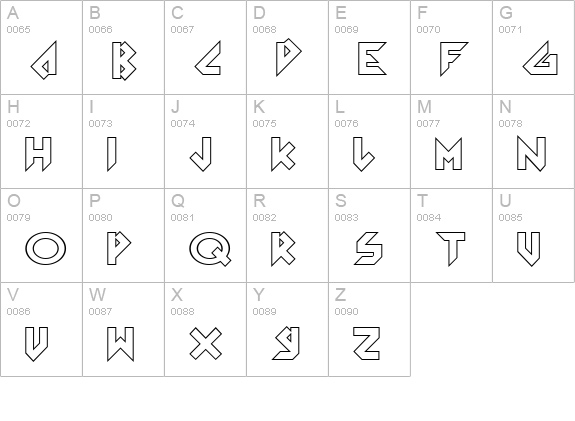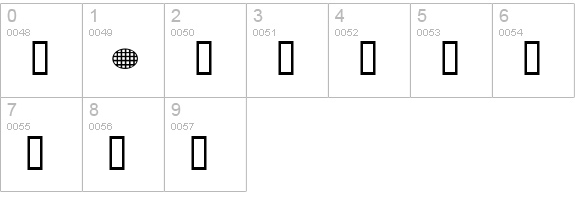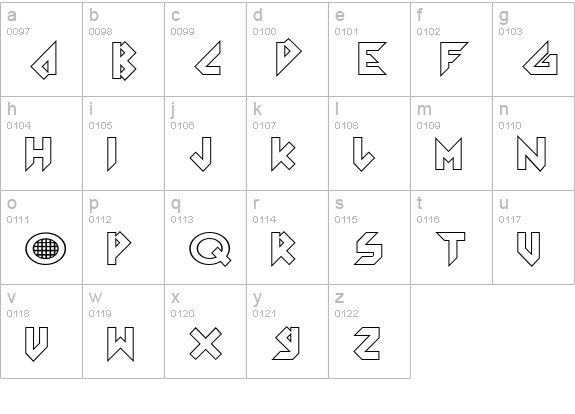
Arkanoid Font Details
The Arkanoid font is a sleek and modern typeface that exudes a sense of strength and sophistication. Its sharp angles and geometric shapes give it a futuristic and edgy look, making it perfect for projects that require a bold and contemporary feel. What sets the Arkanoid font apart is not only its striking design, but also the fact that it is available for free download at FontsMarket.com. This means that you can easily add this eye-catching font to your design arsenal without having to worry about any additional costs. Whether you're working on a branding project, a poster design, or any other creative endeavor, the Arkanoid font is sure to make a statement and elevate your work to the next level. Download it for free today and unleash its power in your designs!